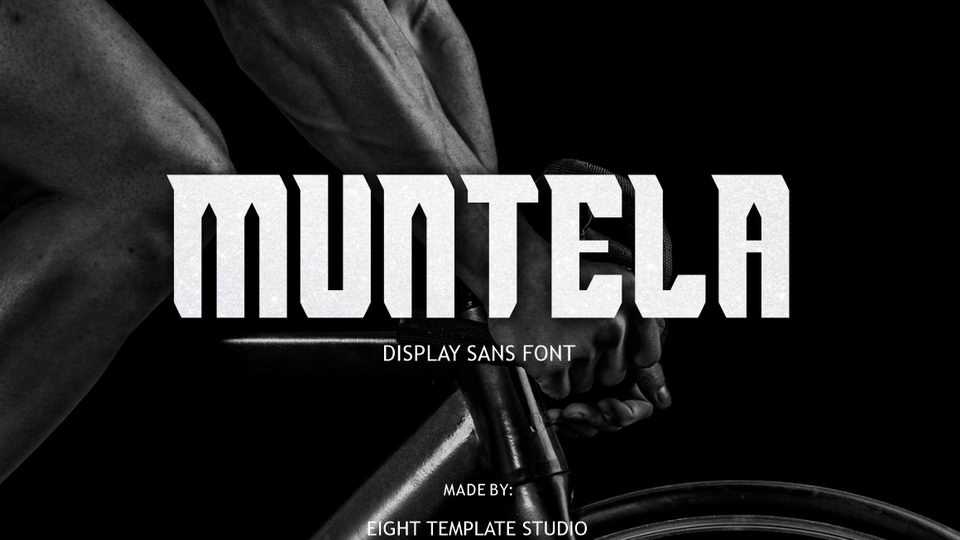
Download Muntela font, a bold and sharp sans serif typeface created for your needs. Muntela is perfect for logos for branding, typographic designs, badge designs, product packaging and more.
Designer: Eight Template Studio